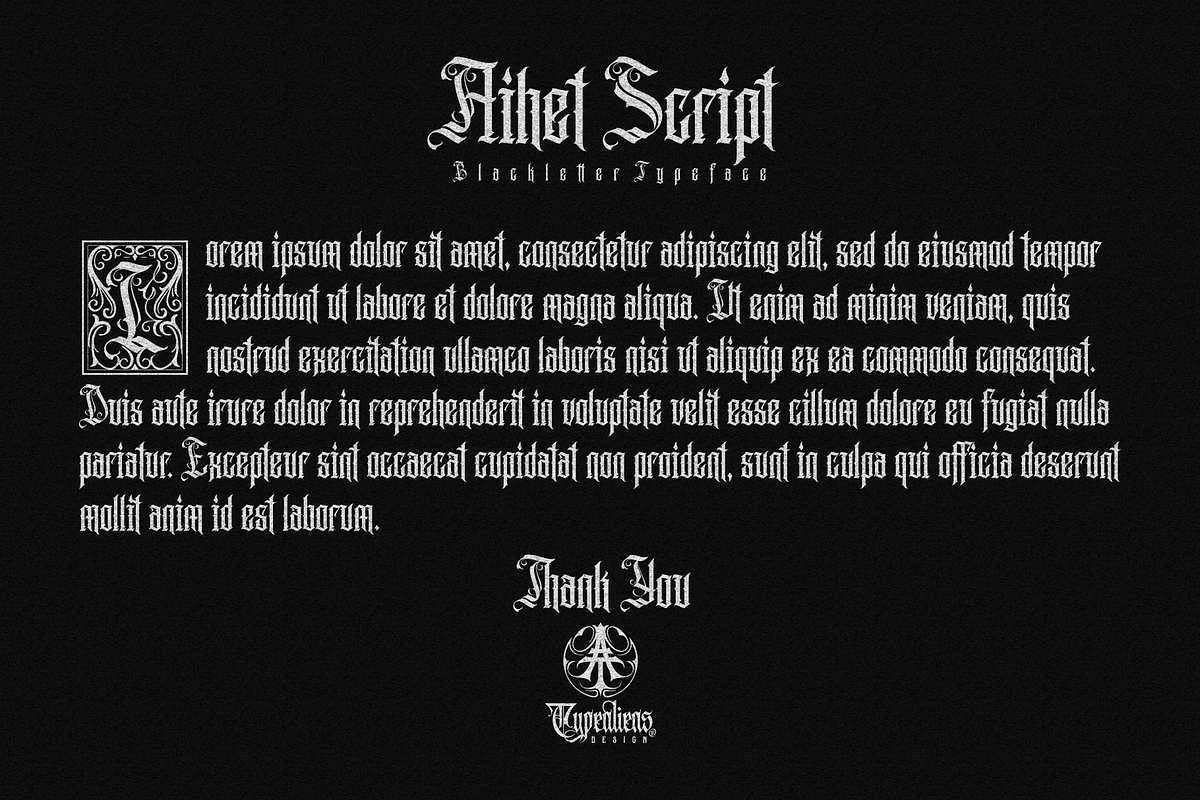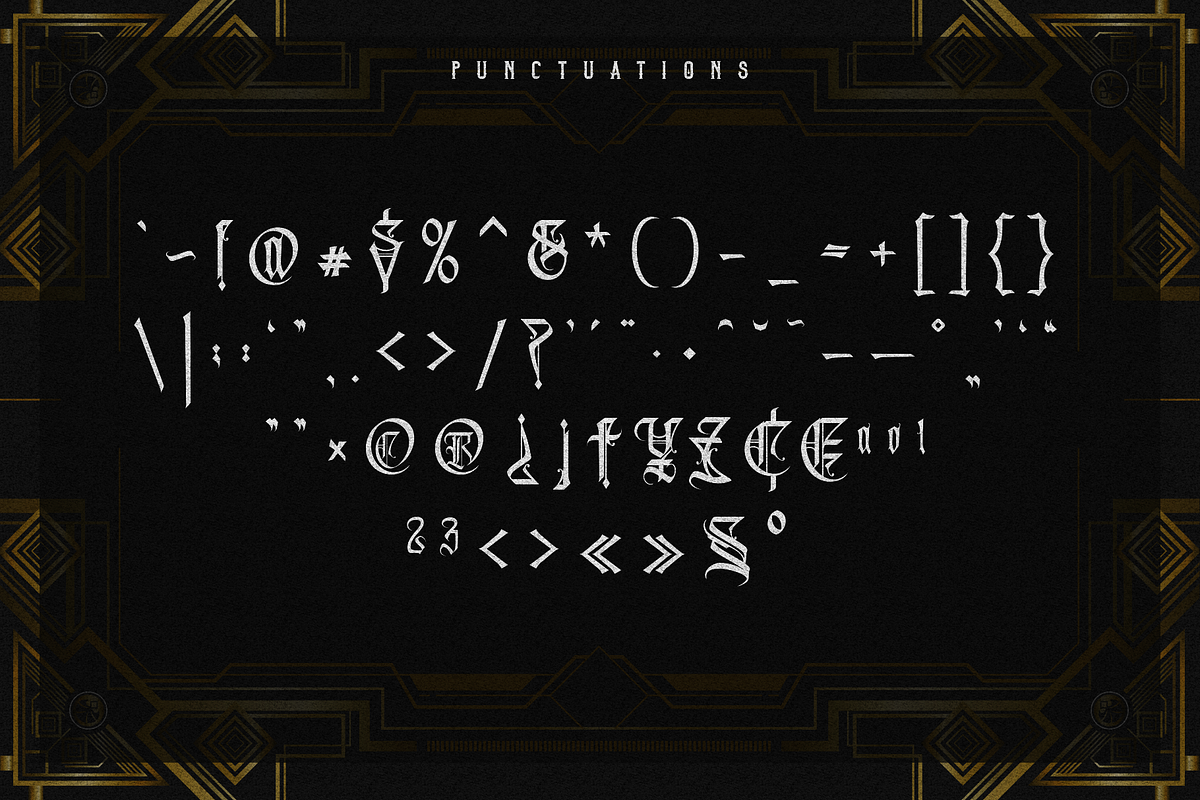
Aihet Script for Tattoo & Liquor
AIHET SCRIPT
is a typeface with Blackletter taste, includes full set of gorgeous uppercase and lowercase letters, numerals, punctuation and multilingual characters support. There are also several ligatures, alternative characters and extras vector ornaments as complementary.
With vintage style Aihet Script Blackletter Typeface is very suitable as to make a design choice for Vintage Beverage Labels, Tattoo Logo, Barbershop Logo, Music Events, Badges, Clothing and many more.
- Alternate Characters.
- Ligatures.
- Support Multilingual Characters.
- Extra Vector Ornaments.